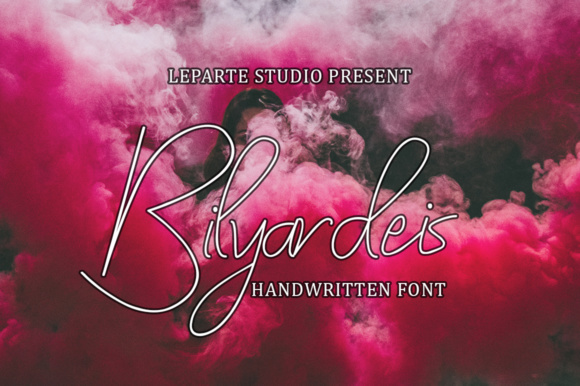
Welcome to the realm of Bilyardeis Font, an artistic creation of leparte studio that will elevate your digital designs to new heights of elegance. This display font, with its striking presence and beautiful handwritten style, is perfect for injecting a touch of sophistication and charm into any project.
Bilyardeis Font is a versatile font, capable of transforming your creative visions into reality. Whether you're designing wedding invitations, crafting social media posts, creating eye-catching logos, or working on branding projects, this font will add an enchanting allure to your work. Its unique handwritten style is sure to captivate audiences and leave a lasting impression.
Many innovative designers and artists swear by Bilyardeis Font, relying on its ability to add a touch of class and finesse to their projects. With its meticulously crafted characters, Bilyardeis Font will make your designs stand out from the crowd.
Bilyardeis Font is more than just a font; it's an artistic expression that breathes life into your digital creations. Whether you're a seasoned designer or just starting out, this font will elevate your work to new heights of creativity.
Join the ranks of countless satisfied designers who have transformed their digital creations with Bilyardeis Font. Embrace the beauty of handwritten elegance and let your designs shine with a grace and charm that will capture hearts and minds.